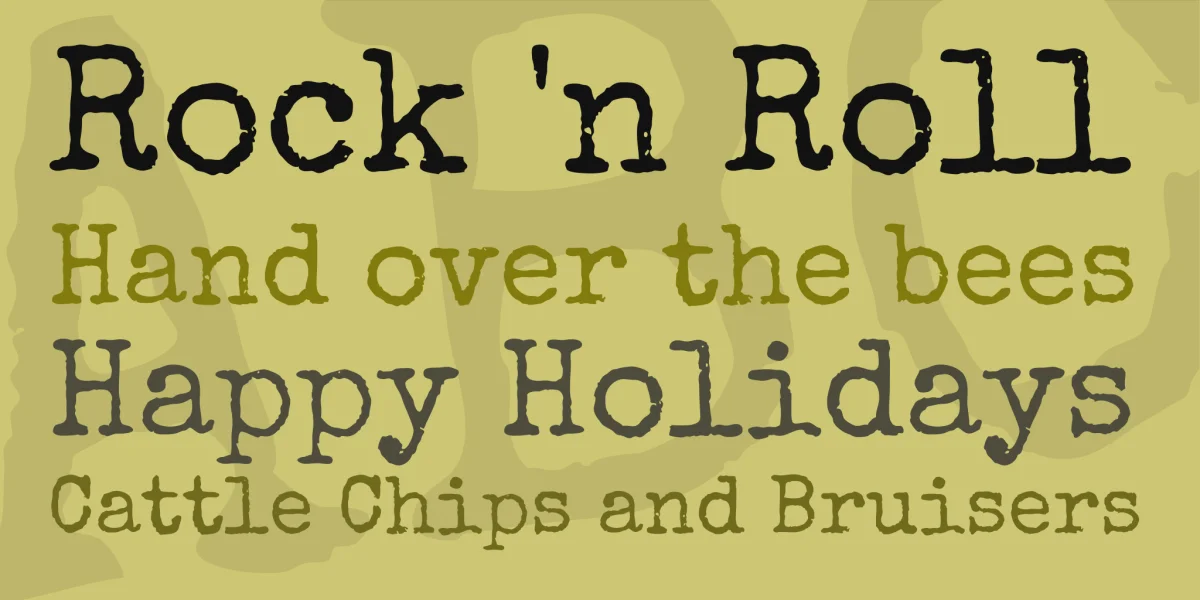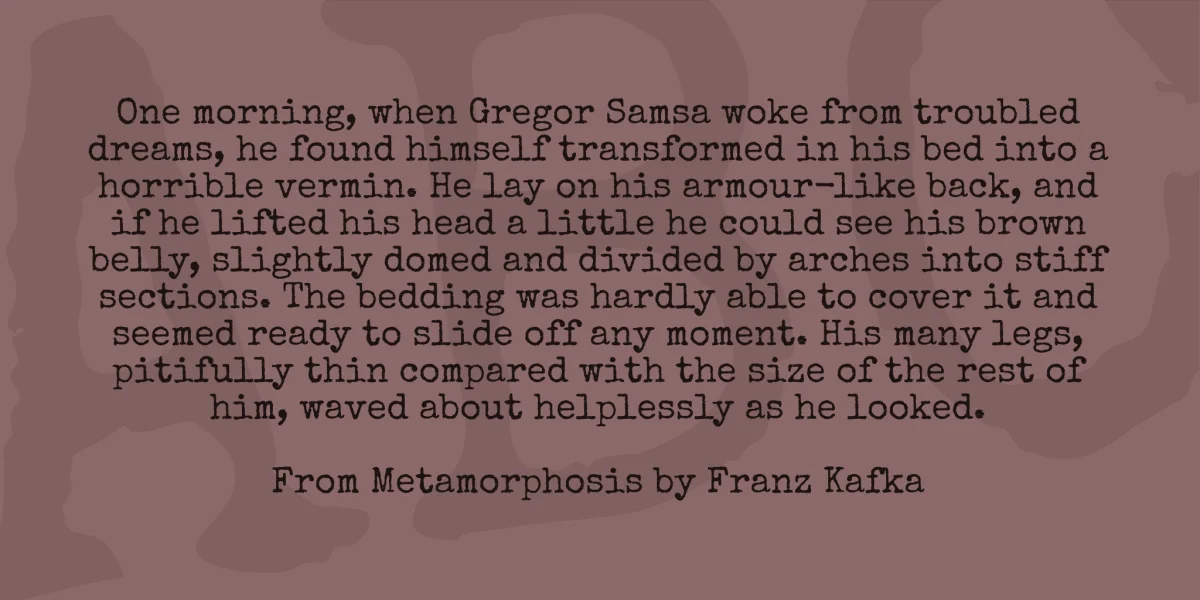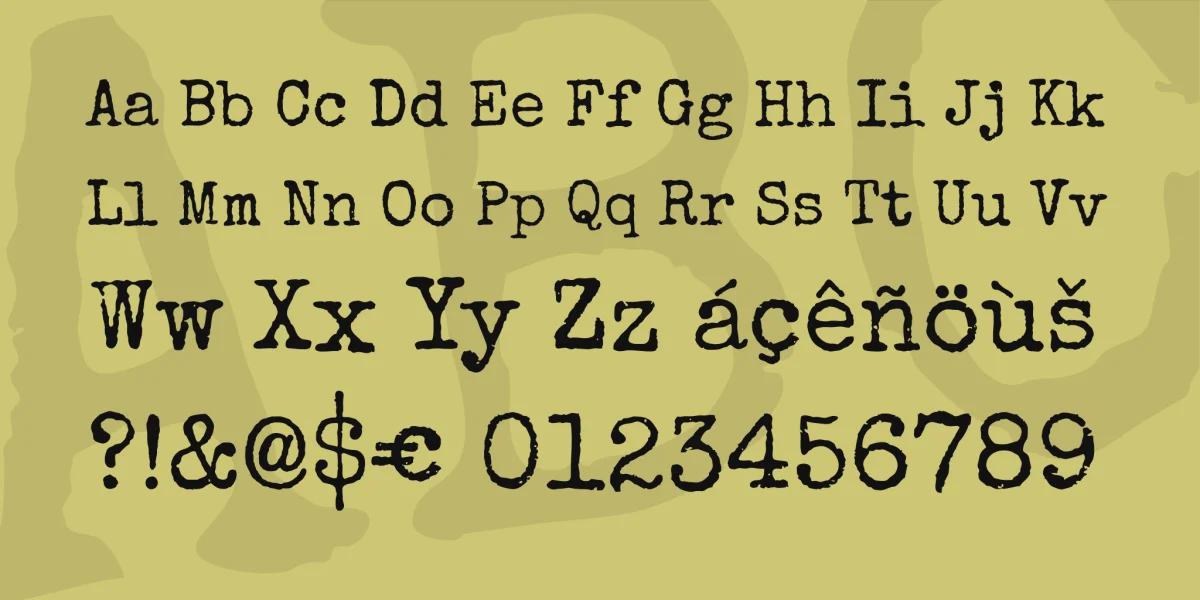
Special Elite was created to mimic the Smith Corona Special Elite Type No NR6 and Remington Noiseless typewriter models.
A little bit of inked up grunge and a little old school analog flavor work together to give you a vintage typewriter typeface for your website and designs.